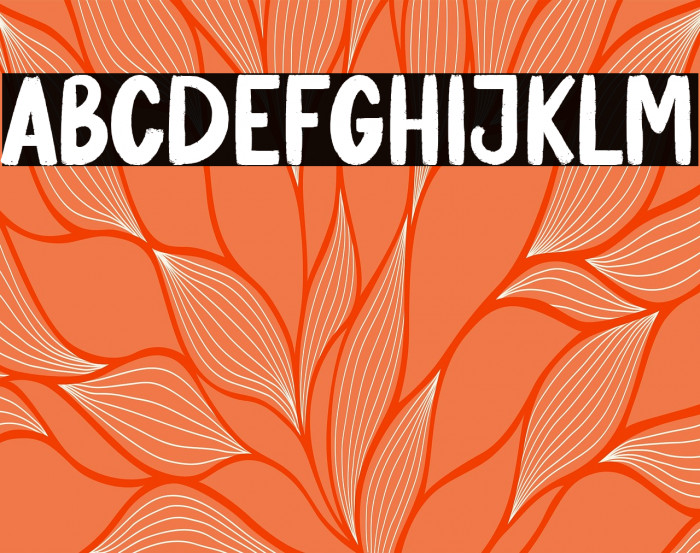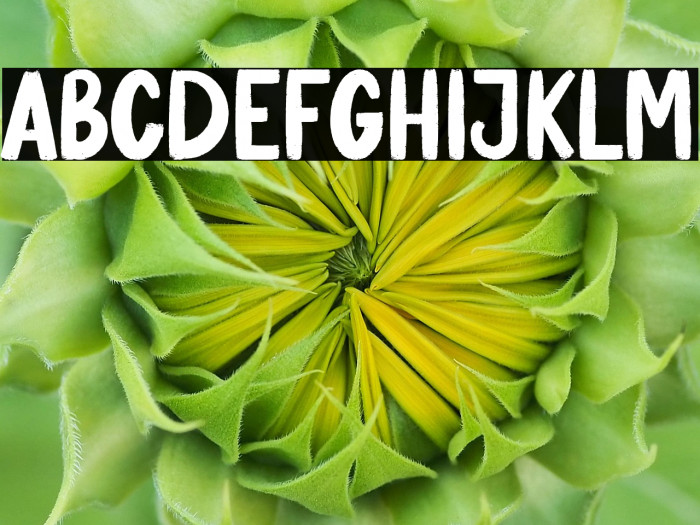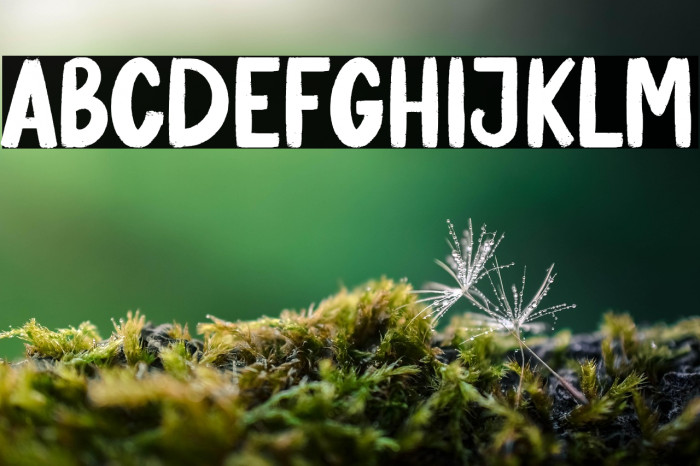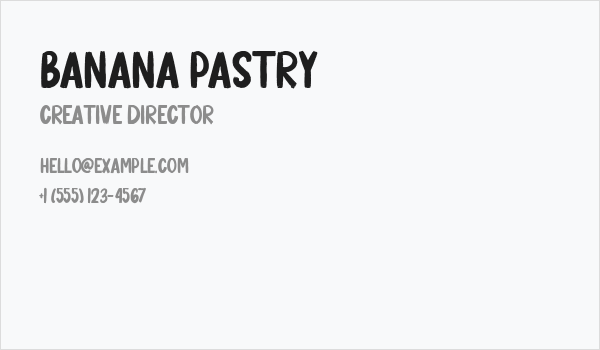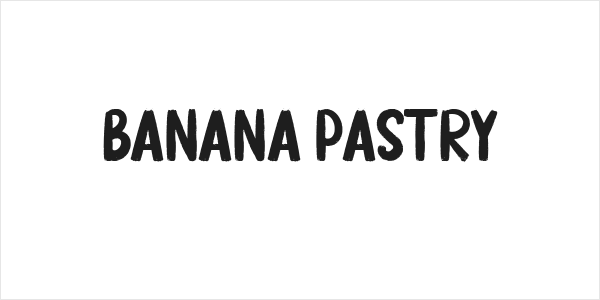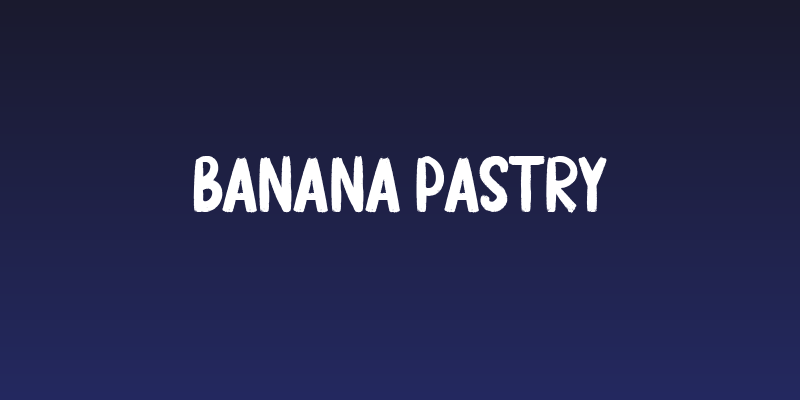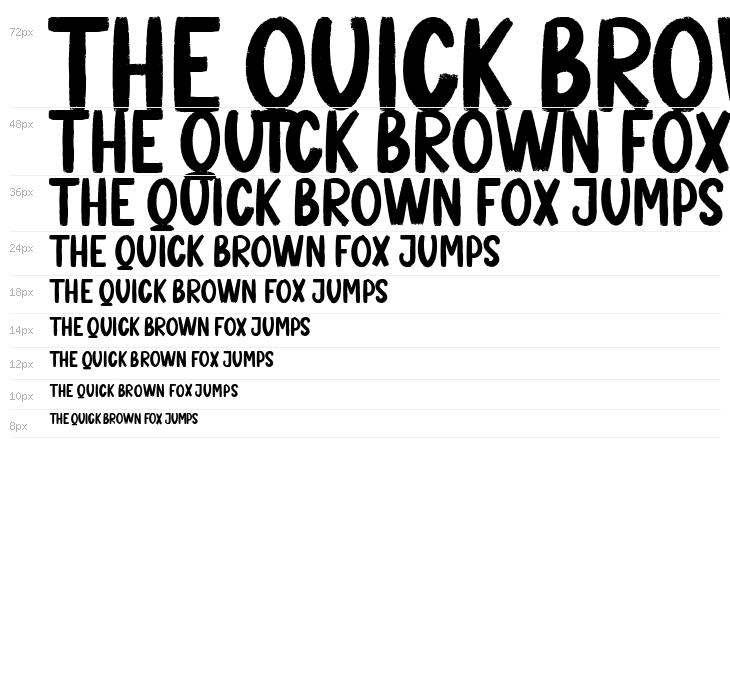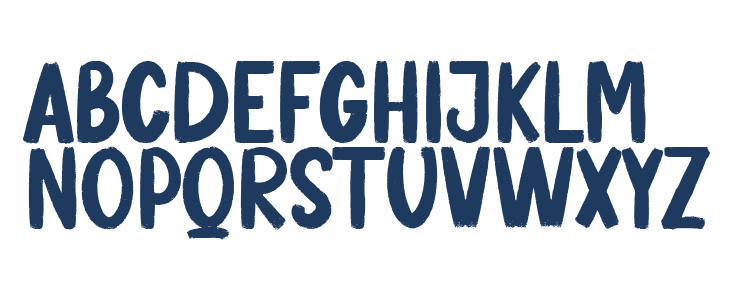
Banana Pastry Font
Banana Pastry Description
This font features a bold and playful style with a hand-drawn appearance. The letters are thick and slightly irregular, giving them a casual and friendly look. The uppercase and lowercase characters maintain a consistent weight, while the numbers and special characters complement the overall design. The strokes are rounded and smooth, adding to the approachable feel. This font is ideal for projects that require a fun and informal touch, such as children's books, posters, or branding for creative businesses.
| Proposed Projects | Ideal for children's books, playful posters, creative branding, and informal invitations. |